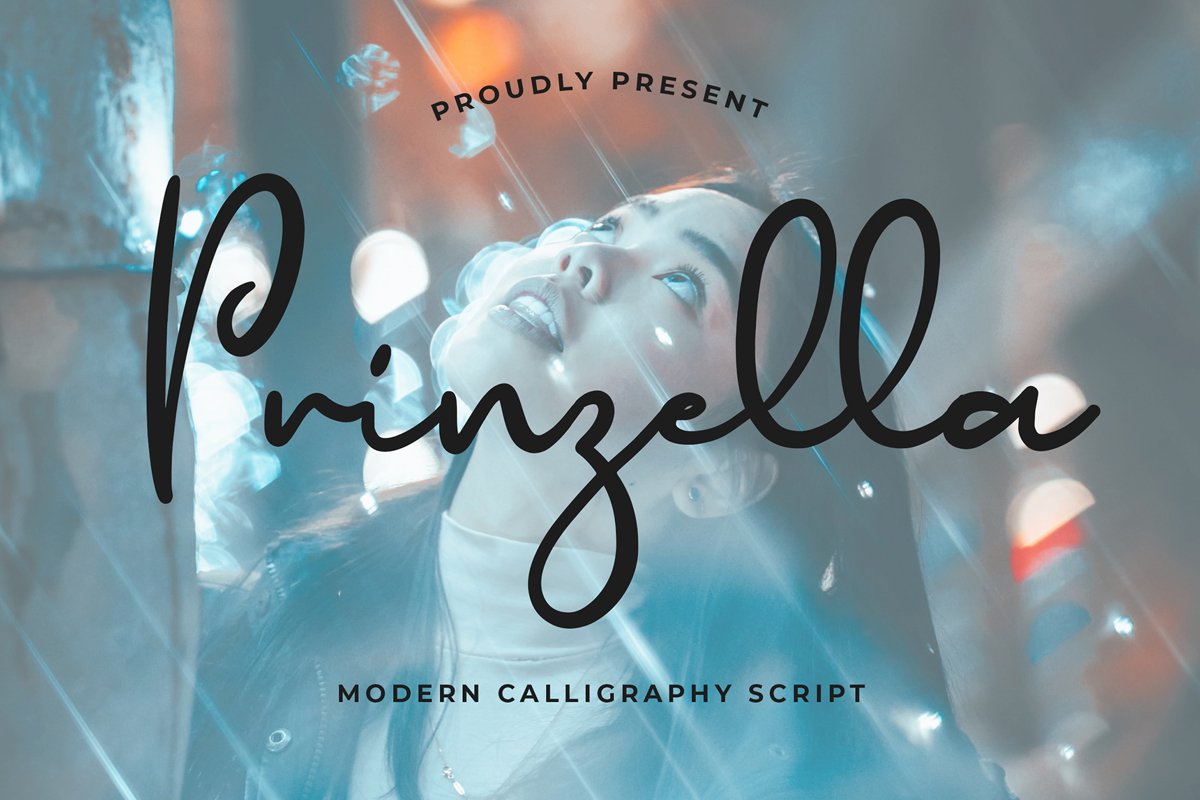
Prinzella Beautiful Calligraphy Font
Prinzella
Prinzella is a beautiful calligraphy font. This beautiful script can make your text appear elegant, luxurious, and modern!
• Tons of glyphs